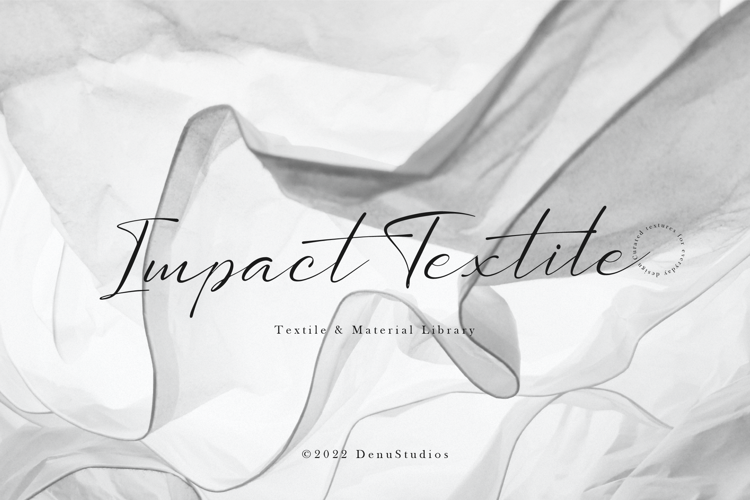
Sollutes Handy Font
Sollutes Handy | Callighraphy Chic Font, is suitable for any projects such as: logos, branding projects, homeware designs, product packaging, mugs, quotes, posters, shopping bags, t-shirts, book covers, name card, invitation cards, greeting cards, label, photography, watermark, special events, and all your other lovely projects that need a Script taste.